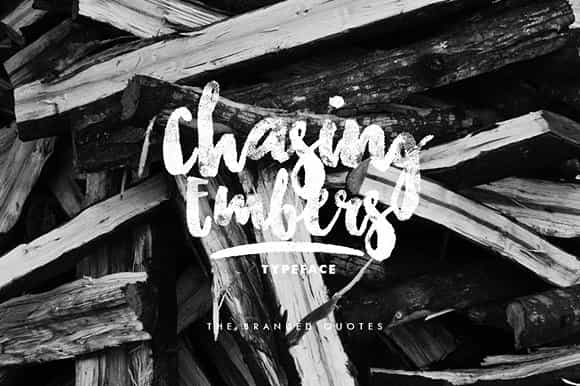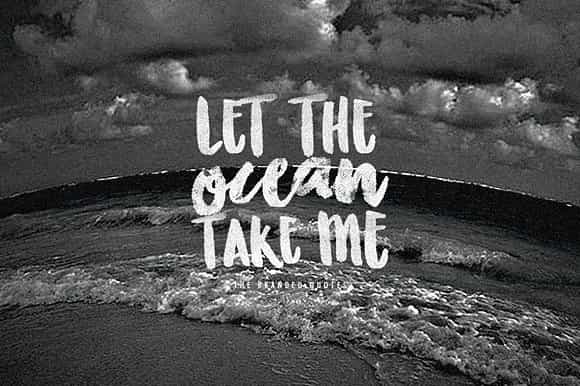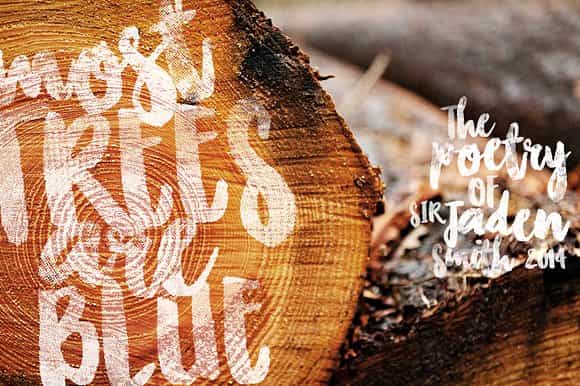
Chasing Embers Typeface is Brush font that already has ink/watercolor texture on it. There is no need to fix anything on it, just place it over your photographs and projects! The described Chasing Embers font is a camouflage to whatever background you may put it under. Professional, creative, eye-catching, unique, For Your Brand Name, Band Name, Identity, Photographs, Blog Headers, Album Art and more!